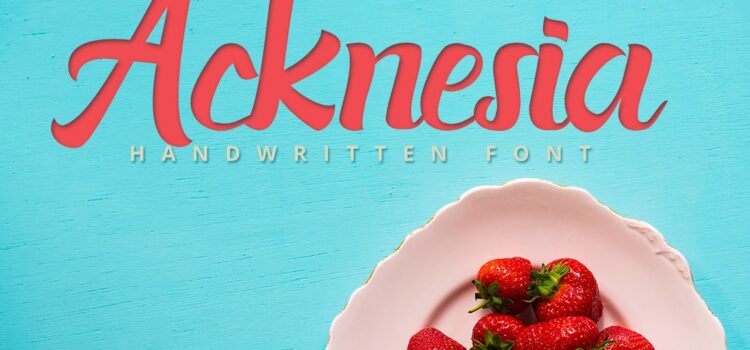
acknesia
Acknesia Font – Free Download Introduction to Acknesia Font Acknesia is a hand lettered script font with a clear style and dramatic movement. 📸 Preview Gallery 2 images 📌 Product Name Acknesia Font 👤 Author Hustletter 📂 Category Explore ⬇️